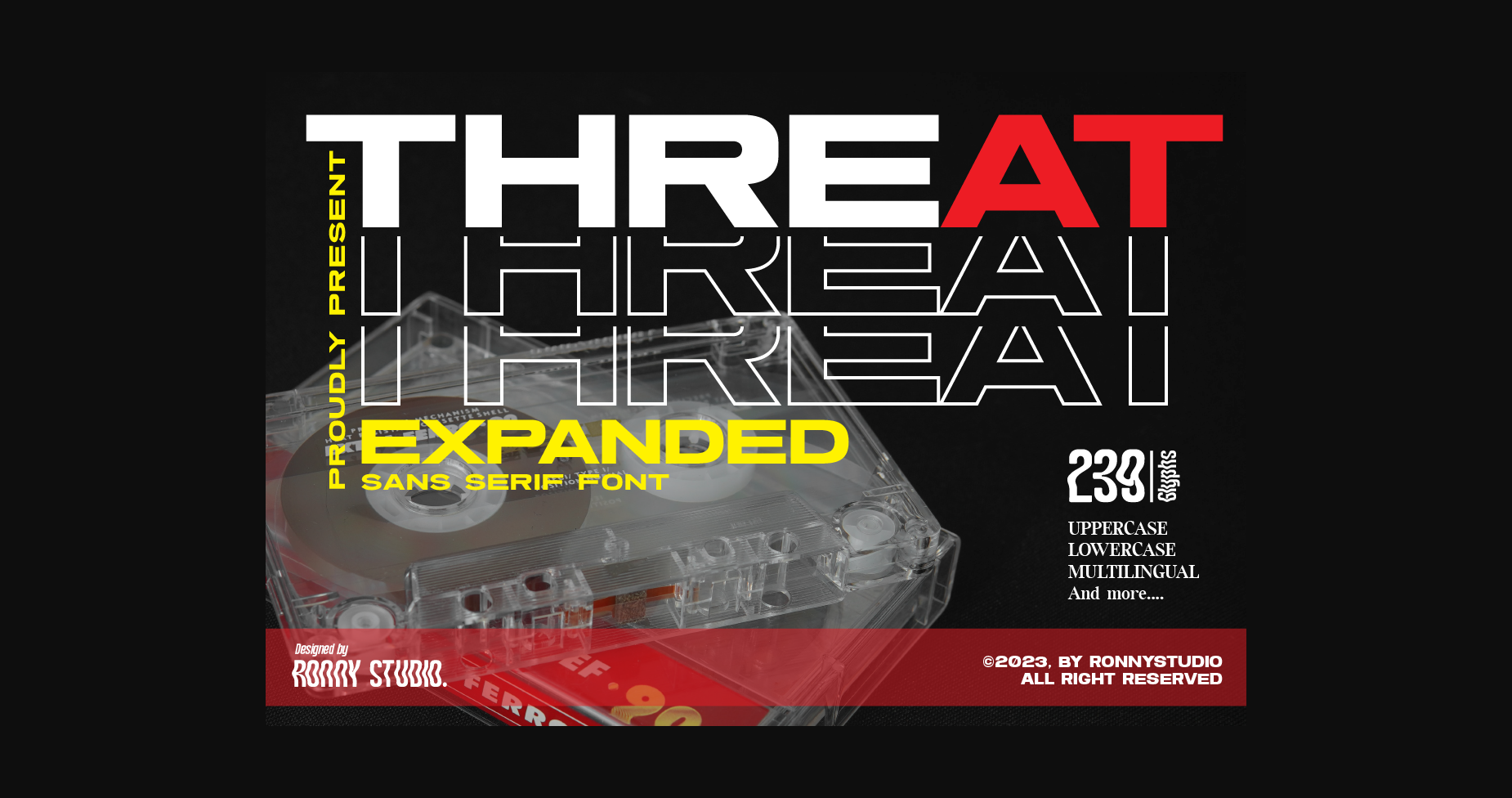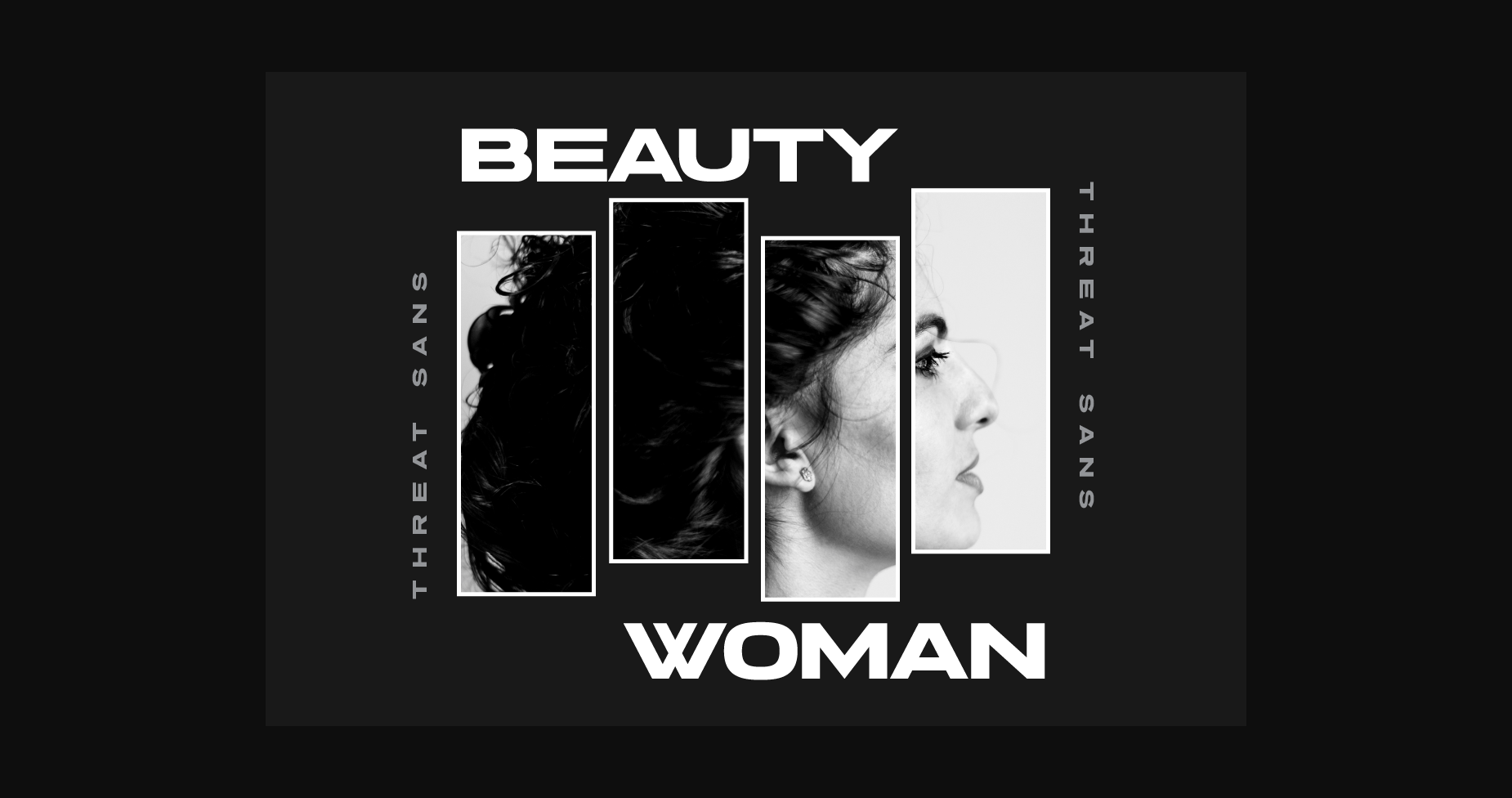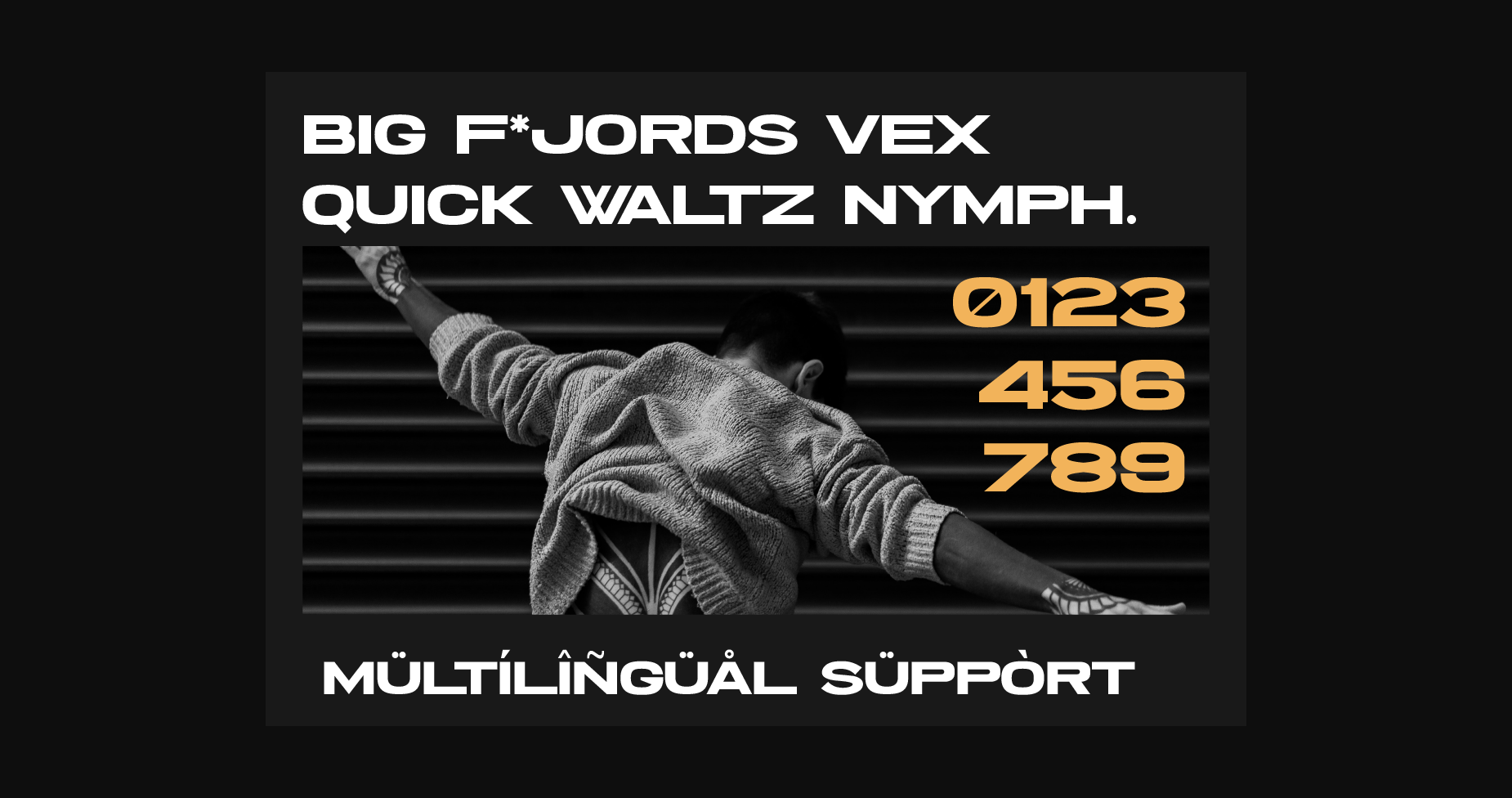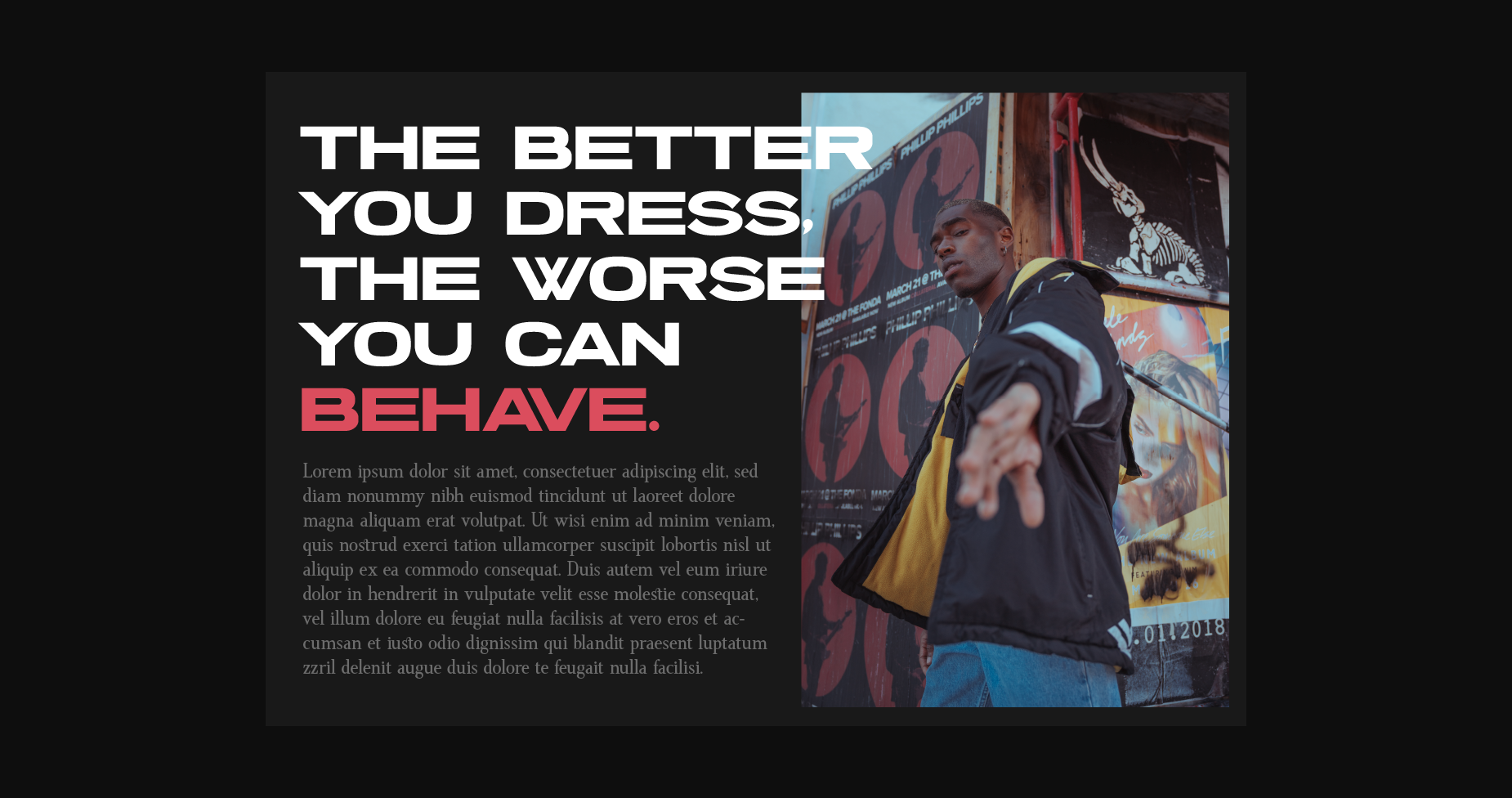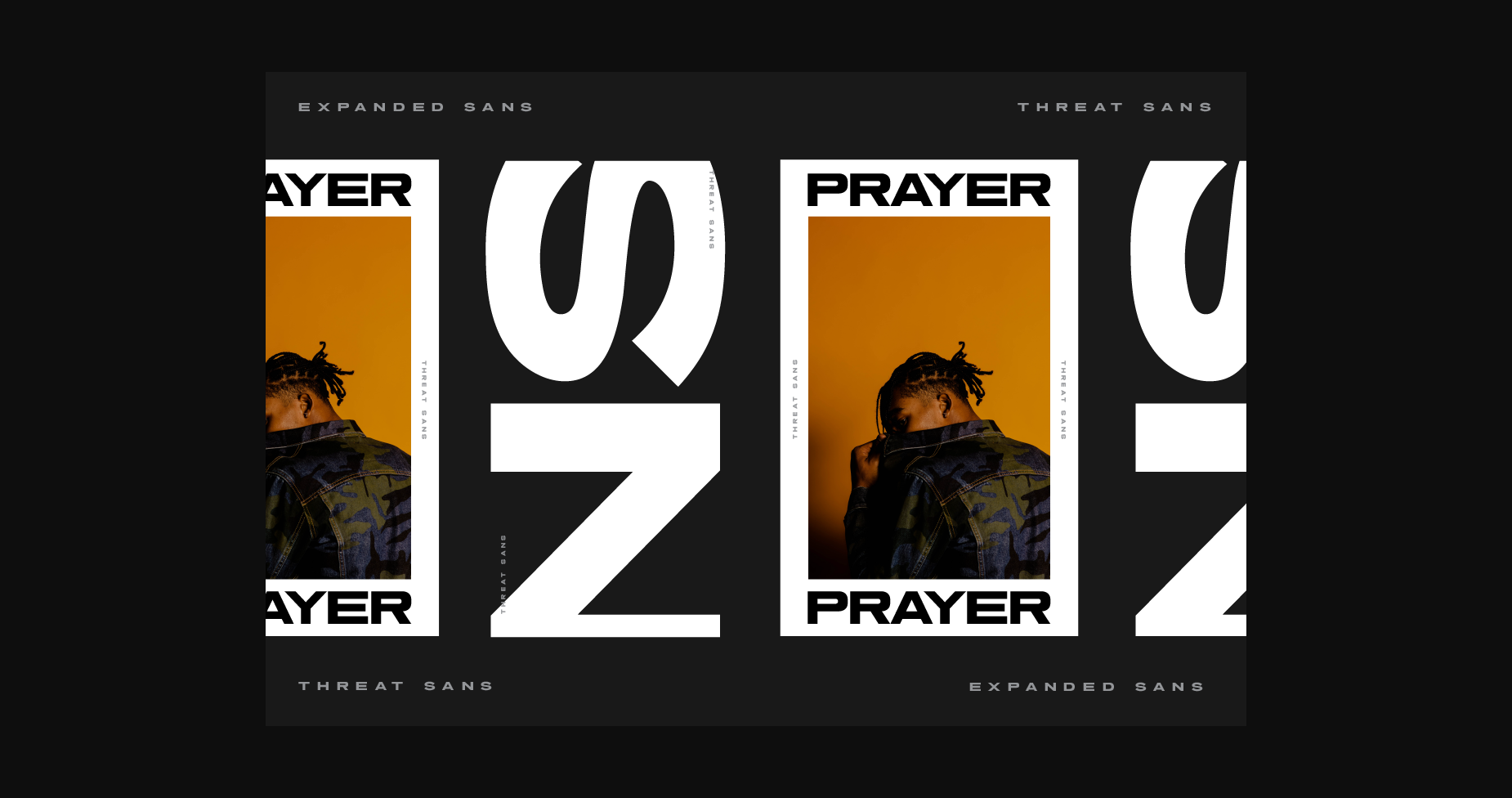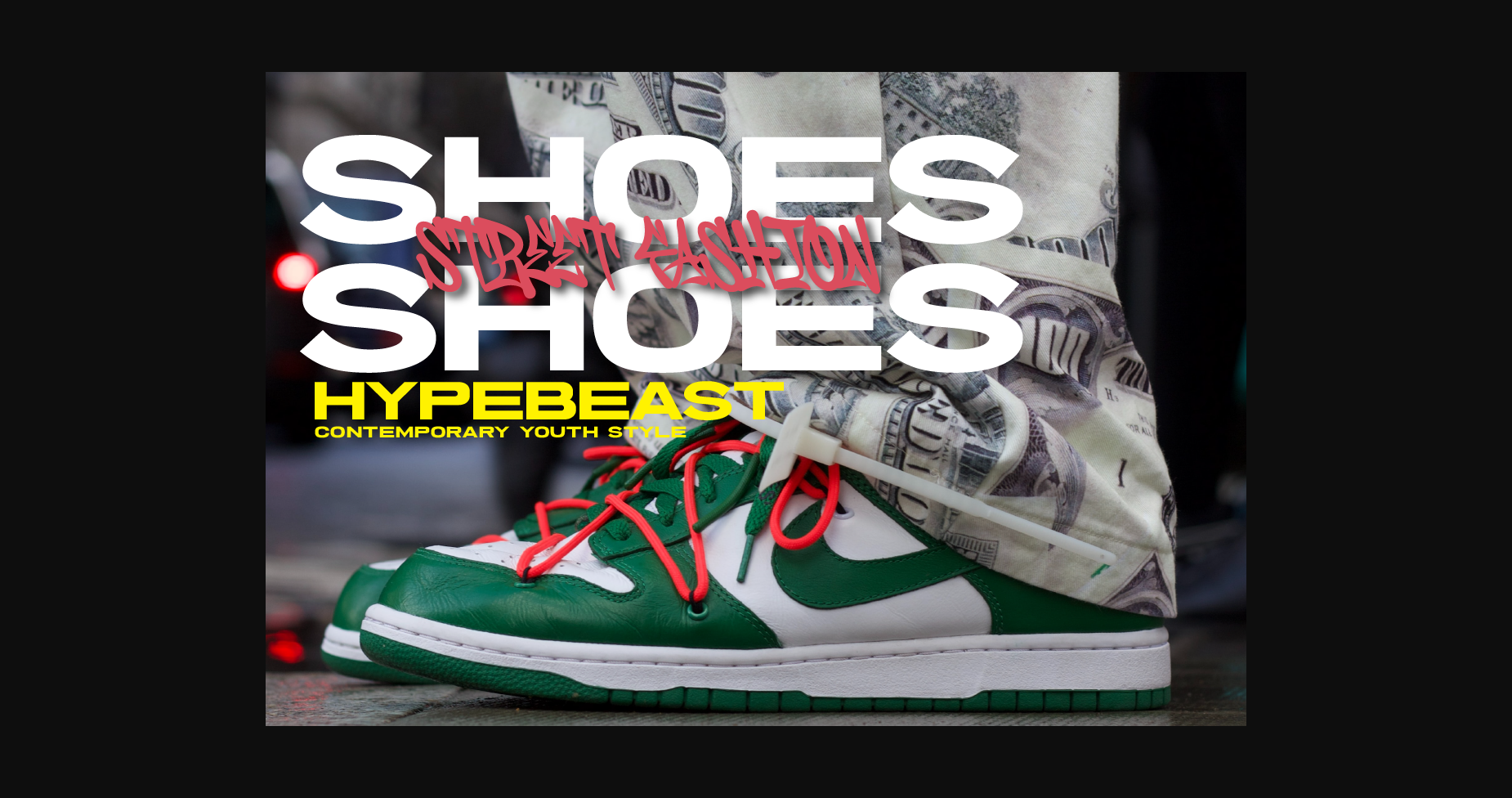
About Threat Font
Threat is an all-caps font that has a very bold body but still has high contrast. This font looks very modern when paired with contrasting design colors. This font is impressive and features a clean and elegant font, professionally shaped, and as a result, it will easily match a variety of creations that require a different touch. Add it with confidence to your projects, and you’ll love the results.